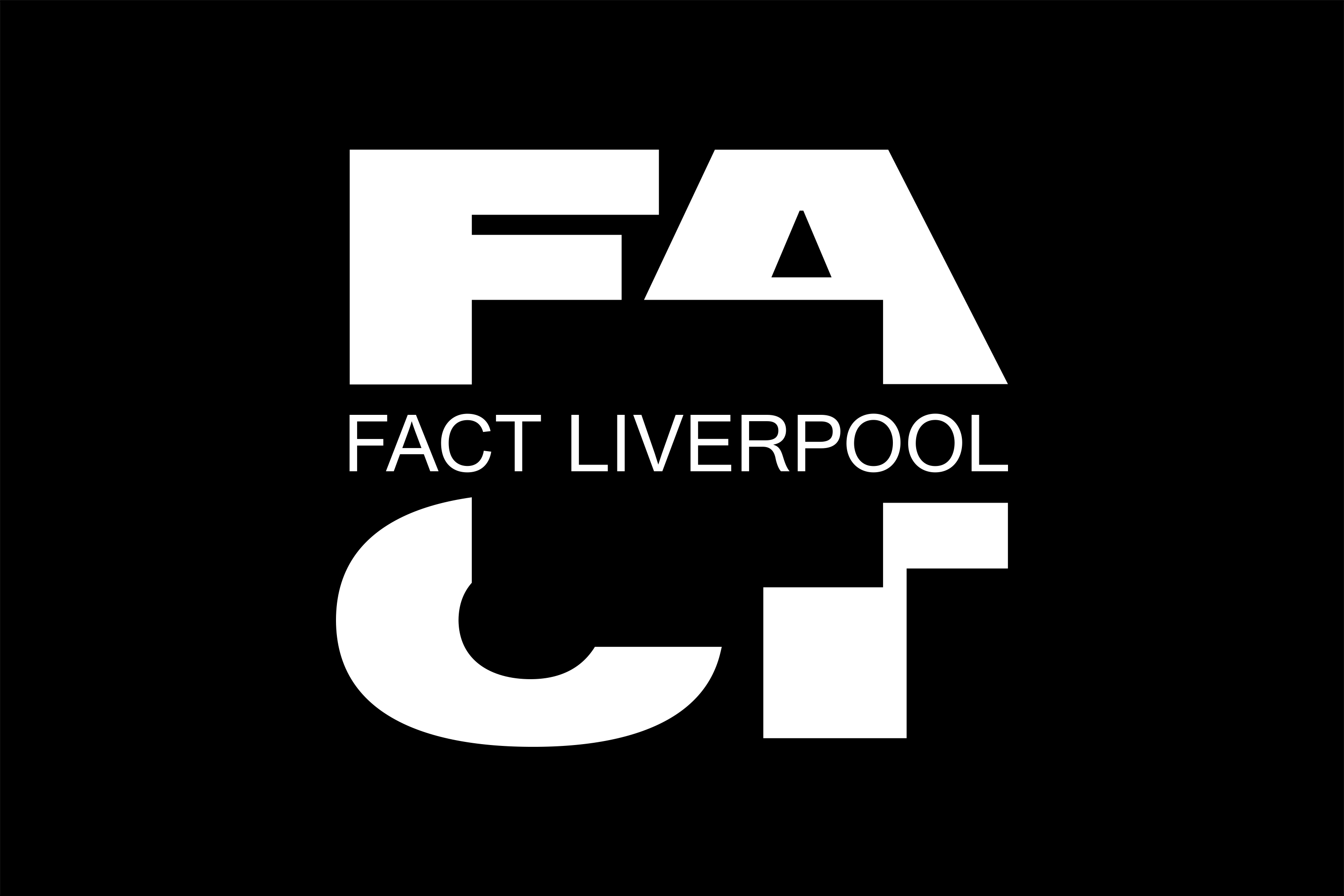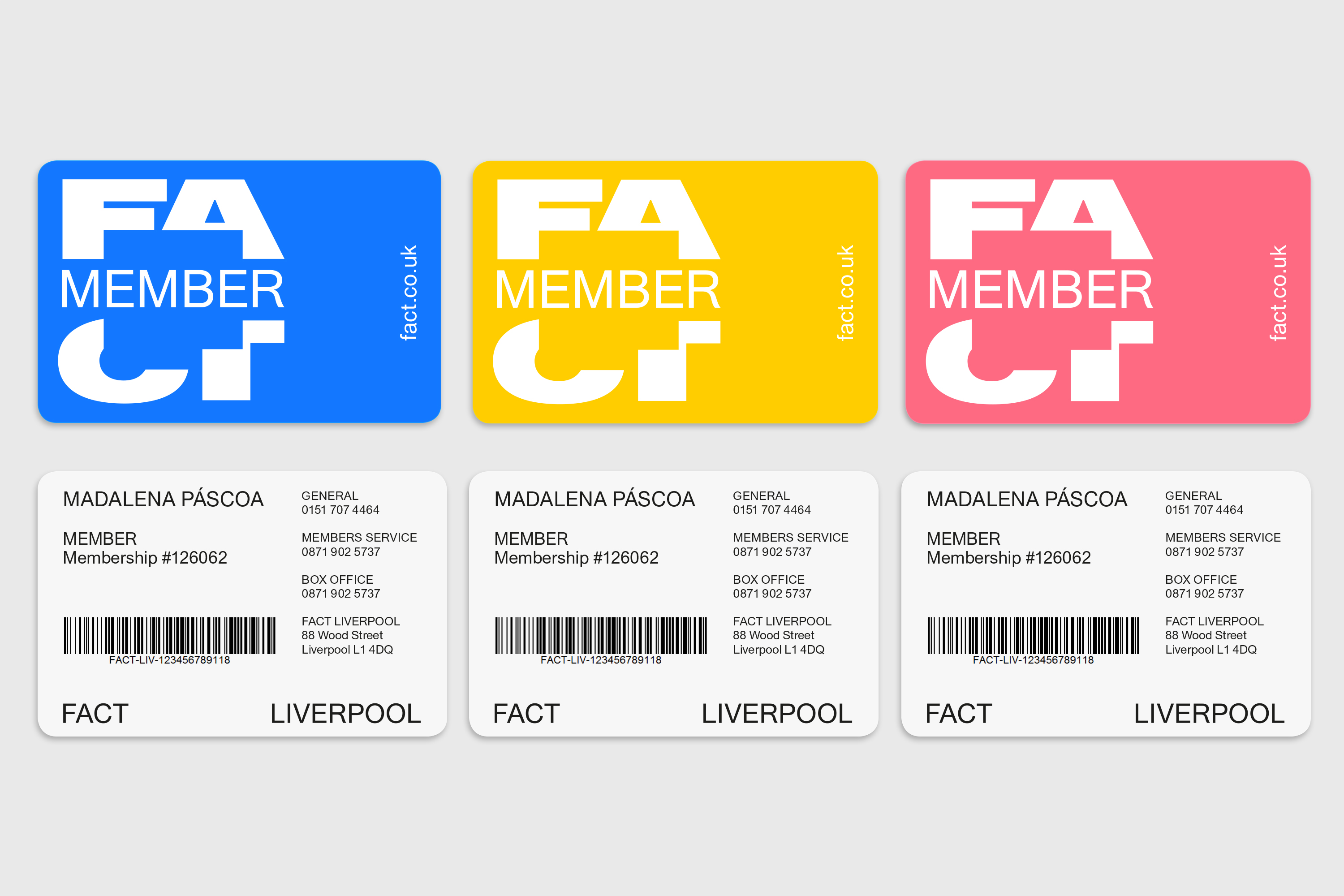
No. 190: Sweet Sushi Branding, a New Typeface For Every Week, a Playful Identity for Architecture Competitions + More
Hello, and welcome to this week’s Design Diary, a collection of five projects from across the world that have impressed us this week.
1
DekoRatio Design, Sushiroll branding
DekoRatio Design recently got in touch with us, all the way from Budapest, Hungary, with some very cute branding for Sushiroll, a sushi street food concept in the city. “Our aim was to create a friendly and approachable design that shows another exciting way of eating sushi and might be able to convert some avid sushi haters,” says the studio. “Using parentheses in the logo reminds you of the endless possibilities: you can put almost anything in your rolls. And apart from that, it looks a lot like an actual sushi roll. We also used just a hint of Japanese culture in the typography.” The project photography is by Kevin Campean and Szani Meszaros, with the studio’s graphics led by Zsofia Nagy. Keep rollin’!
2
Rob McConnell, Hamburgefonts
Assistant professor at Brigham Young University–Hawaii Rob McConnell found himself pondering a way to “flex some creative muscle without getting bogged down in a full project.” He’s arrived at what seems like a fairly hefty way to tackle the conundrum: create a new type design each week, spelling out the letters “hamburgefontsiv.” Those are the first 15 letters most type designers create as they are working on a typeface, from which the rest of the typeface can be extrapolated. The fruits of his labor are on display on hamburgefonts.com, and according to McConnell, the project has allowed him to explore a wide range of styles and push his type design skills into new directions. “I give myself a week to explore the core principles of a font and create at least the 15 letters in uppercase or lowercase,” he says. “After the week ends I move on to another.”
He adds, “I’ve even used this project as a way to introduce the basics of type design and principles of good typography to my students. Even if they never design another typeface after this project, I’ve noticed that they are more attuned to the little design decisions and the details that good typefaces will have.”
If there are any folk out there keen to use the typefaces, the designer says he’ll “happily go back and finish them out to more complete fonts.” So get browsing!
3
Branding Lowell: A History of Local Design, courtesy of the AIGA Boston Chapter
Mark Van Der Hyde is one of the curators for the exhibition Branding Lowell: A History of Local Design, which opened on March 24 at the Mogan Cultural Center in Lowell. He spoke to AIGA’s Boston chapter about how the project came about, the unique design history of Lowell, Massachusetts, and the “perpetual change” the city endures, which has incidentally brought about a lot of graphic design to support it. “When viewed together, this body of work gives a fresh visual timeline to stand beside the more well known Lowell narratives,” he says.
4
Alexandre Pietra, designs for The Observatoire des Marchés Publics romands
Some beautifully simple yet oh-so-effective branding work here by Swiss graphic designer Alexandre Piétra for The Observatoire des Marchés Publics romands (Ompr). The company fosters and promotes the organization of architecture and engineering competitions, parallel study mandates, and tenders. As serious as that sounds, Piétra’s designs veer solidly towards the “fun” side of functionality. Her work uses icons as signifiers: “A red smiley indicates a lack of legality or important qualitative deficiencies. An orange smiley indicates qualitative deficiencies. A green smiley indicates a well-organized procedure which allows a fair and healthy competition,” she explains. We love the abstracted logo mark and friendly typeface, used mostly in monochrome then spiced up with flashes of bright red and neon green.
5
Praline, Fact Liverpool rebrand
Stunning work as per usual from London-based design studio Praline, which has created a new visual identity for Fact (Foundation for Art and Creative Technology) gallery in Liverpool. The new brand strategy, tone of voice, and visual identity aim to emphasize “Fact’s role as one of the major players in the UK’s creative scene with an international reach, anchored by a vibrant building but not limited by its physical location.” The new identity focuses on more image-led communications—“a show don’t tell attitude”—as well as a new logotype that adapts according to the visual content, aiming to underline the role of the gallery as a “place where people, art, and technology meet.” Praline also introduced a new color palette, and a redesigned website by Kitsune Studios is set to launch over the next few months.